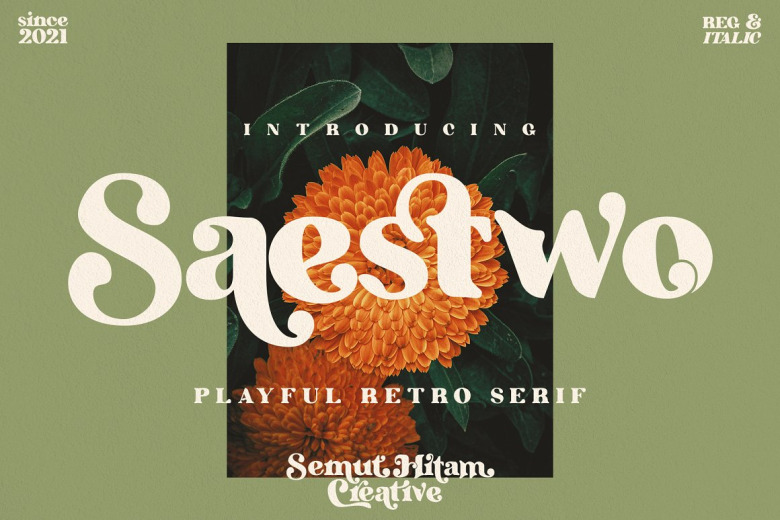
Saestwo Font
Another style : playful retro serif style, created by very careful corner patterns on some of the letters so that it looks very fun, supported by various Alternates and Ligatures that make Saestwo even more playful.
Saestwo includes full set of elegant uppercase and lowercase letters, numbers, punctuation, multilingual language, and various ligatures.
Saestwo Serif Font